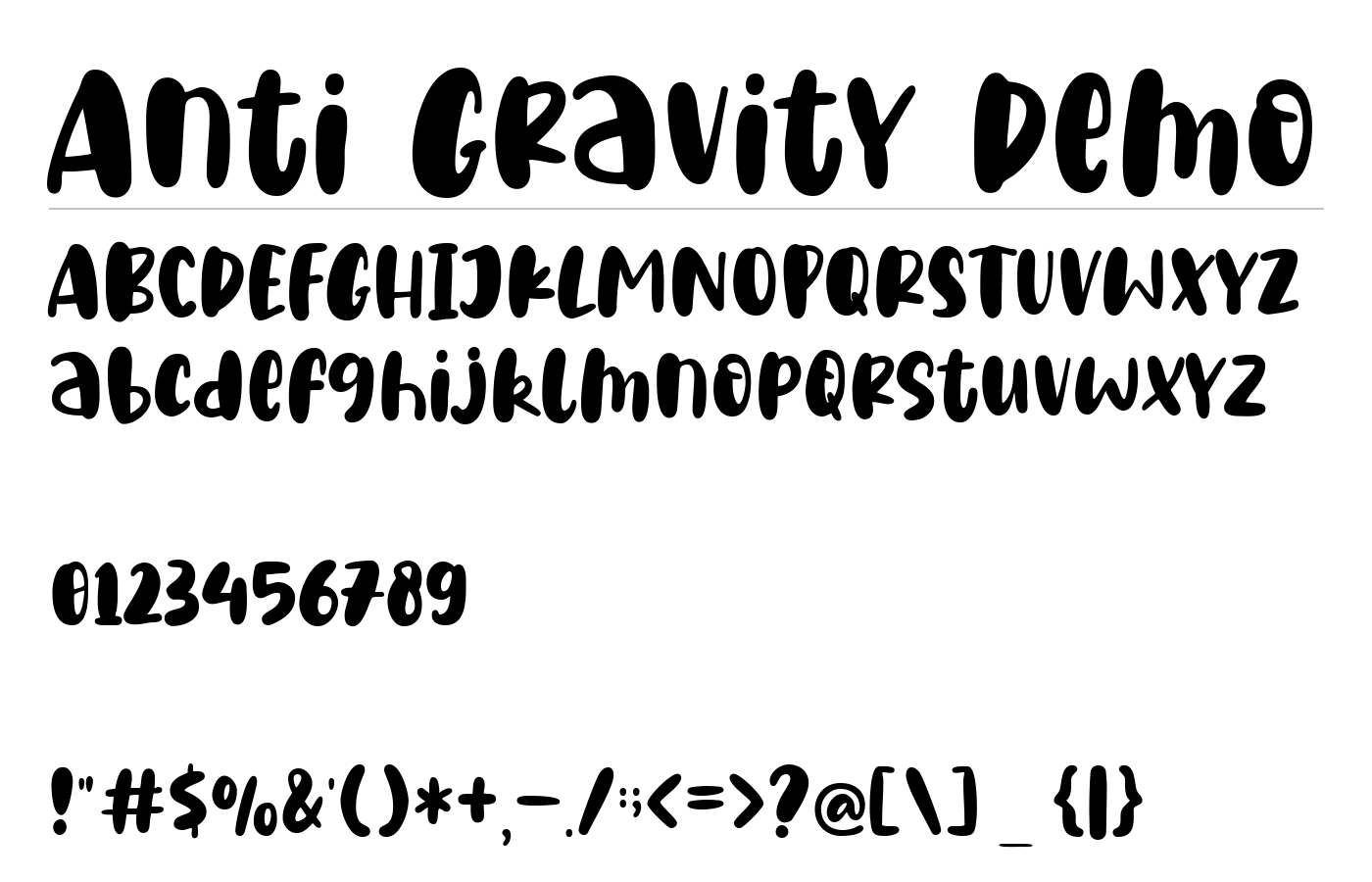
Anti Gravity Demo is a playful, handwritten sans serif font with bold, rounded strokes and a lively, casual character. Its thick, irregular letterforms and generous spacing make it ideal for fun, informal designs like children's books, creative posters, and friendly branding. This font brings a sense of warmth and energy, perfect for projects that want to convey approachability and cheerfulness.
Anti Gravity Demo Font
About Anti Gravity Demo Font